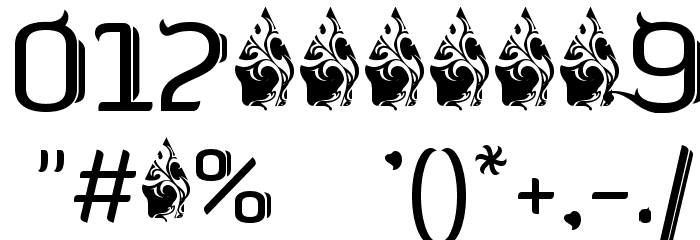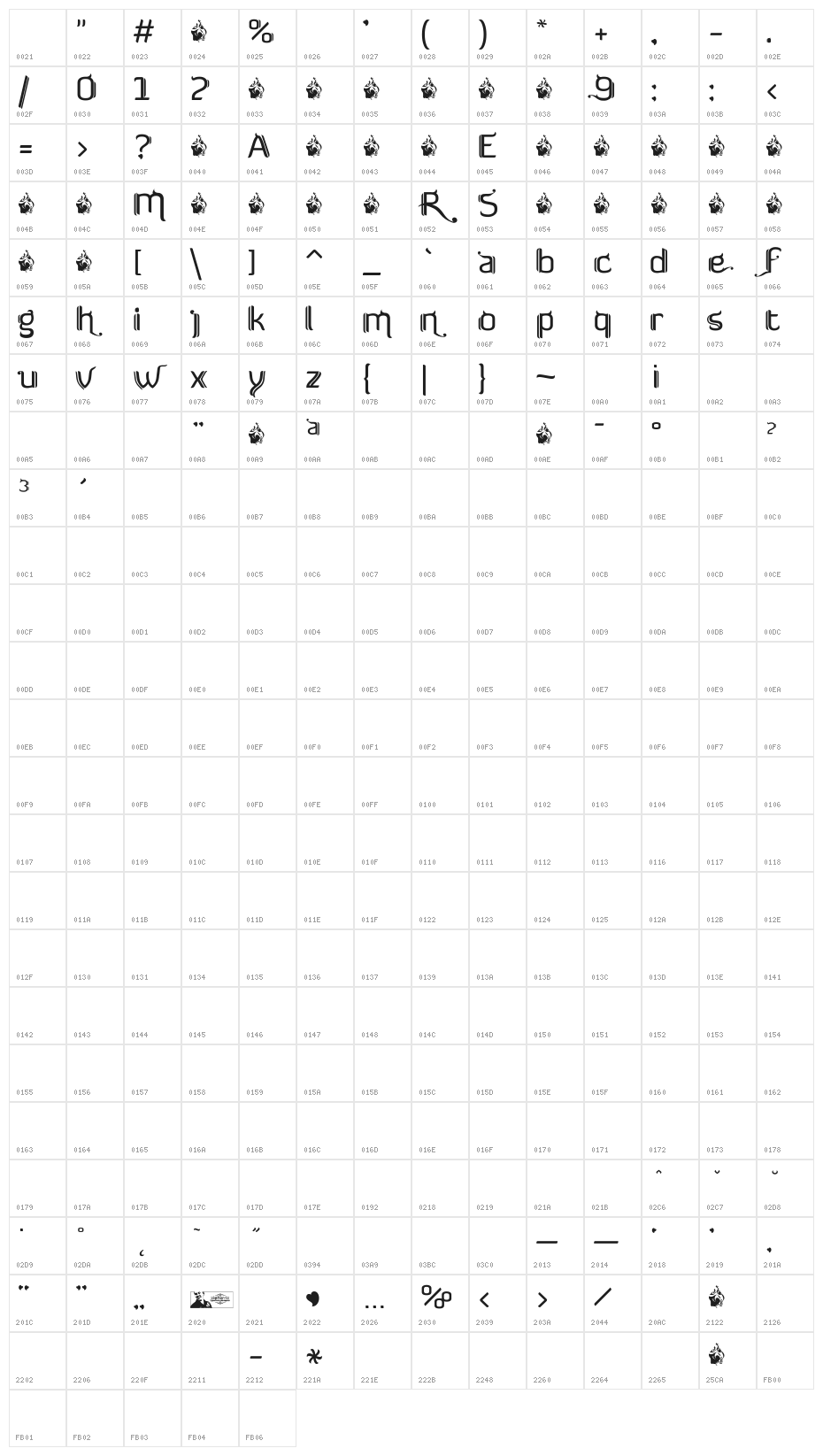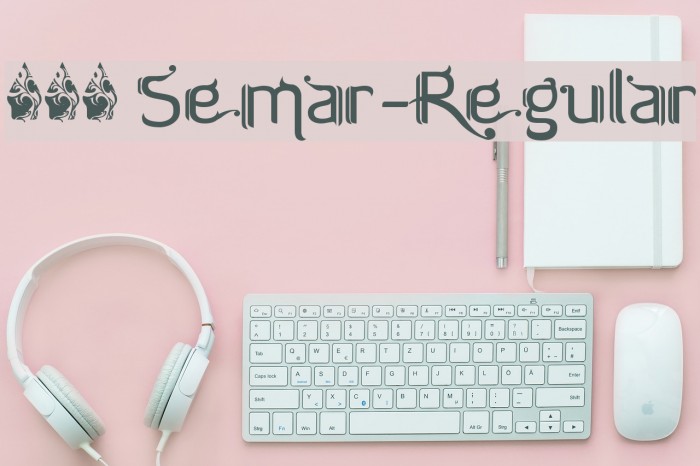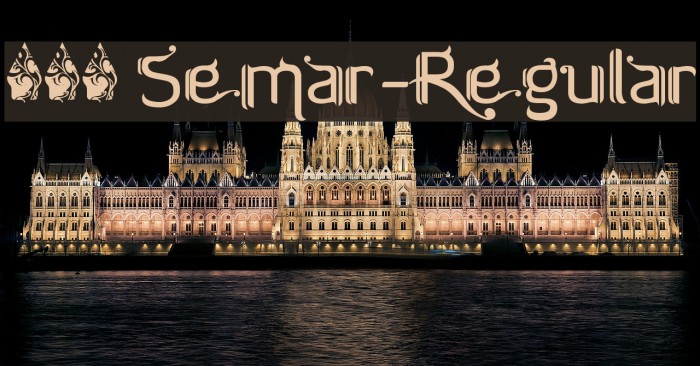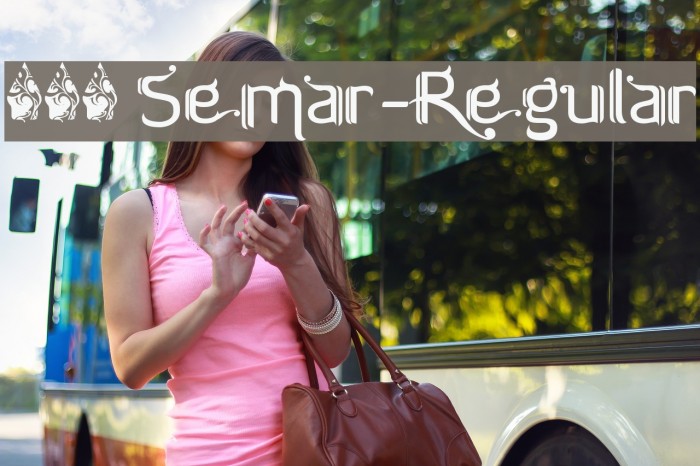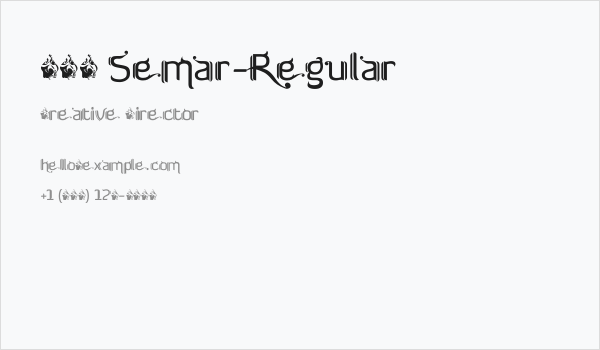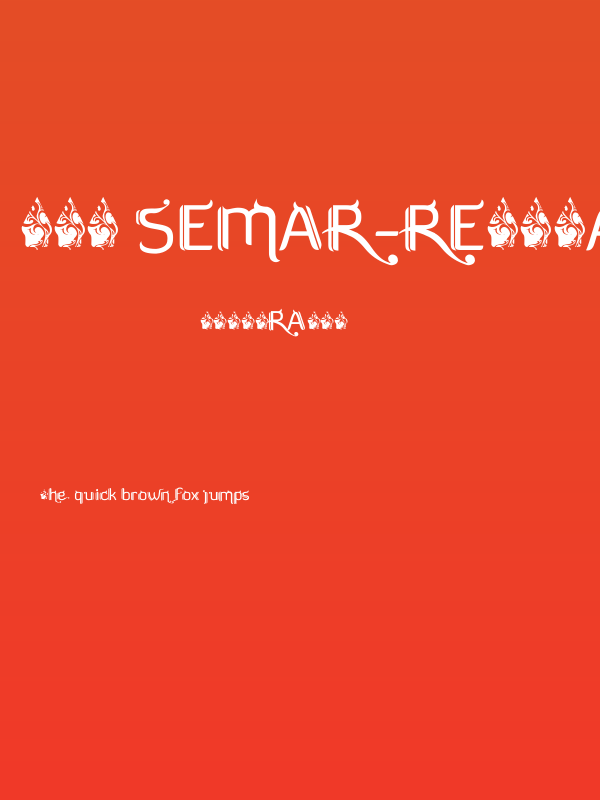
FTF Semar-Regular Font
FTF Semar-Regular Description
This font features an intricate and decorative style, characterized by its unique blend of traditional and modern elements. The uppercase letters are adorned with elaborate, ornamental designs that resemble intricate patterns, giving them a distinctive and artistic flair. The lowercase letters maintain a more streamlined and contemporary appearance, offering a contrast that enhances readability while preserving the font's artistic essence. The numerals and special characters continue this theme, with certain numbers and symbols incorporating the same ornate detailing. This font's overall aesthetic is both bold and elegant, making it suitable for projects that require a touch of sophistication and creativity.
| Proposed Projects | Ideal for wedding invitations, luxury branding, artistic posters, and decorative book covers. |